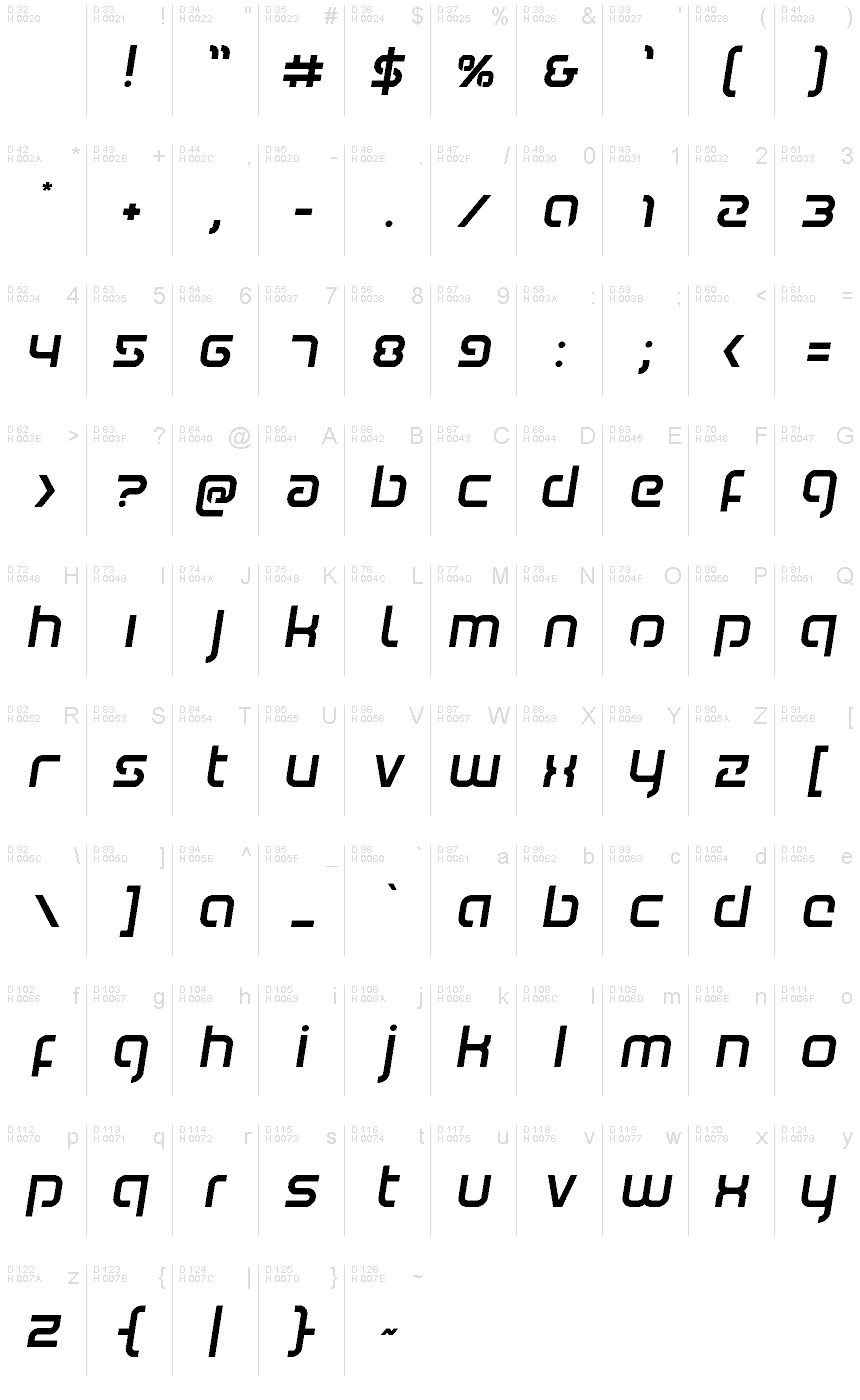
Youngerblood Semi-Italic
Youngerblood font by Iconian Fonts is a sharp futuristic display typewriter with angular, energetic forms. It has sleek shapes and subtle calligraphy-like strokes that build a modern, dynamic style and a thrilling stimulating atmosphere. Letters are stylized but fully readable in both short and long titles. The classic techno look makes the free Youngerblood font perfect for new-age designs that aim for effortless attraction.